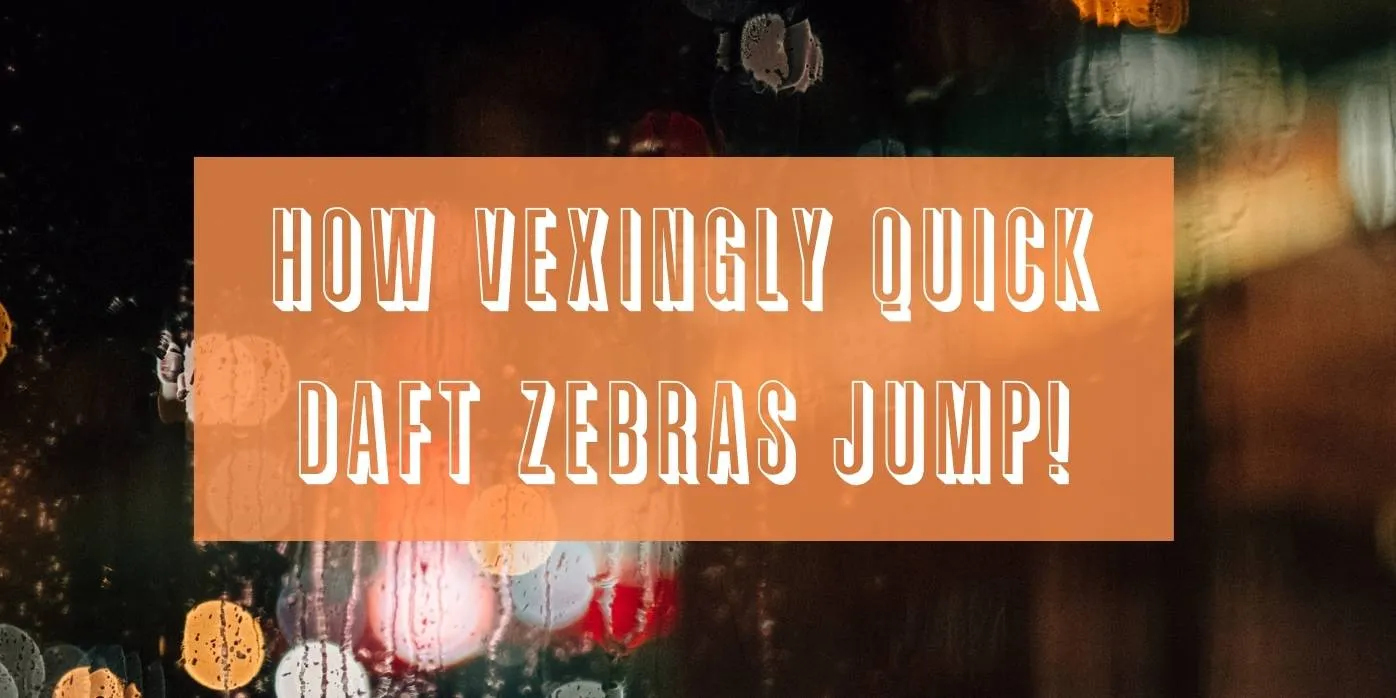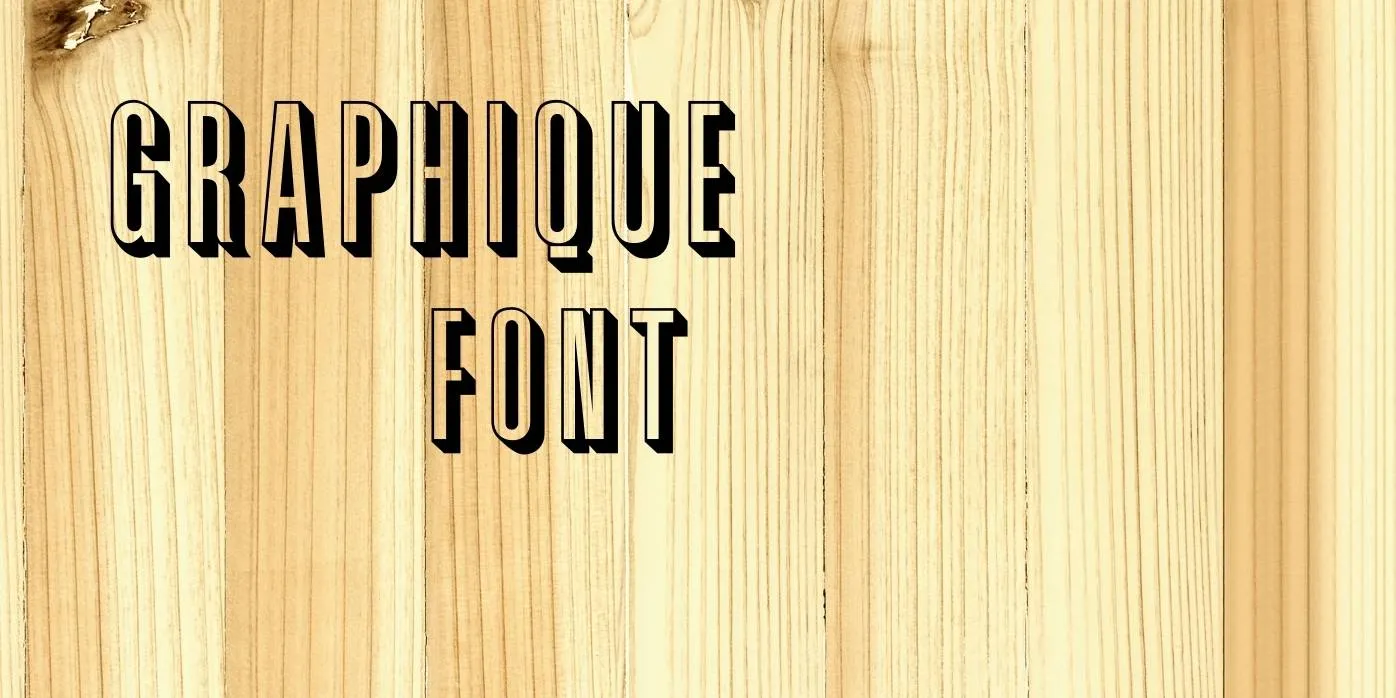
Graphique Font
Here we are consulting about a modern and classic font that was very famous in the industry known as Graphique font. This awesome typeface belongs to the Display font family. This stylish font family was designed by a very famous designer Mr. Ralph M.
Unger in the year 2008. This typeface is available in clean textures and ligatures. This stylish font has come in different attractive characters like symbols, numerals, icons, and so on. These characters also include uppercase, lowercase, mathematical operator.
This gorgeous typeface is also available on Google Font. The popularity of this typeface is based on its textures. Creepster Font is similar to this classic font. This awesome font family supports different international languages.